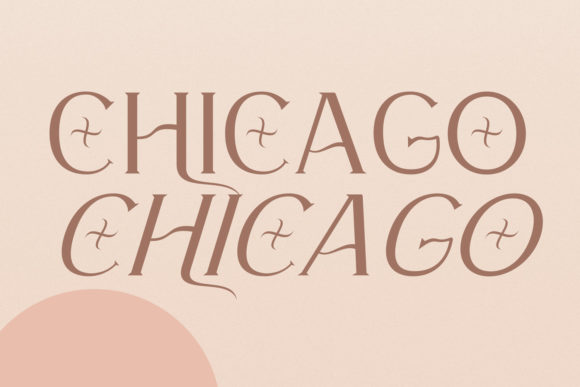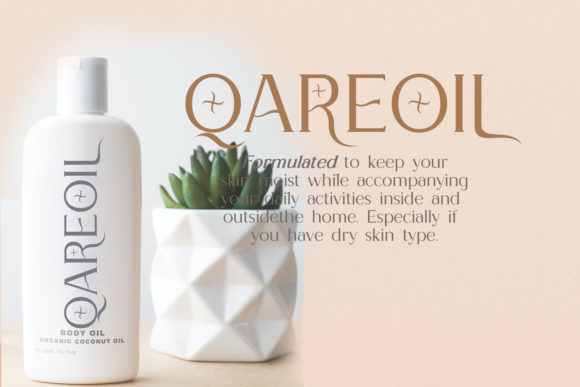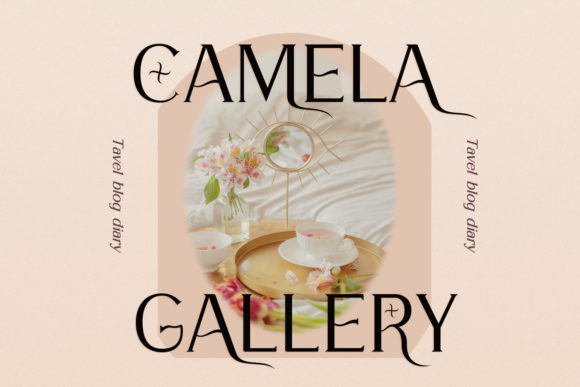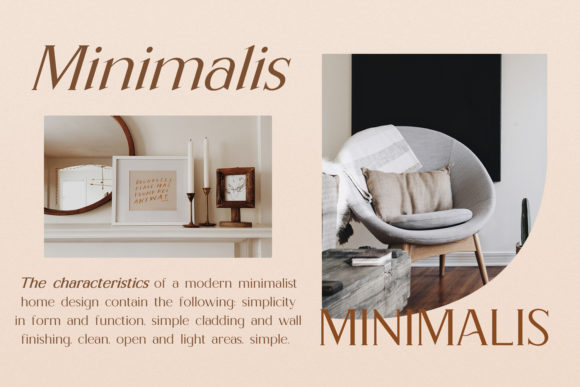
Discover the Elegance of Chicago Font: A Lovely, Stylish, and Delicate Serif Font
Are you a designer or crafter looking for a font that exudes elegance and sophistication? Look no further than the Chicago Font. This lovely, stylish, and delicate serif font is perfect for adding a touch of refinement to your projects. In this article, we’ll explore the features and benefits of the Chicago Font, and why it’s a must-have for any creative professional.
What is Chicago Font?
Chicago Font is a beautifully designed serif font that is perfect for a wide range of applications, from digital projects to print materials. Its delicate lines and elegant curves make it a versatile font that can be used for body text, headings, and even titles. Whether you’re working on a branding project, a website, or a craft project, Chicago Font is sure to impress.
One of the standout features of Chicago Font is its PUA (Private Use Area) encoding. This means that you can access all of the glyphs and swashes with ease, giving you even more creative possibilities. With PUA encoding, you can easily insert special characters, ligatures, and other unique elements into your text, taking your designs to the next level.
Features and Benefits of Chicago Font
So, what makes Chicago Font so special? Here are just a few of its key features and benefits:
- Delicate and elegant design: Chicago Font features a beautiful, refined design that is perfect for creating sophisticated and elegant text.
- PUA encoded: With PUA encoding, you can access all of the glyphs and swashes with ease, giving you maximum creative flexibility.
- Versatile: Chicago Font is suitable for a wide range of applications, from digital projects to print materials.
How to Use Chicago Font in Your Projects
So, how can you use Chicago Font in your projects? Here are a few ideas to get you started:
- Branding and logos: Chicago Font is perfect for creating elegant and sophisticated logos and branding materials.
- Web design: Use Chicago Font to add a touch of refinement to your website’s typography.
- Print materials: Chicago Font is ideal for creating beautiful and elegant print materials, such as brochures, flyers, and business cards.
- Craft projects: Chicago Font is perfect for crafters who want to add a touch of elegance to their projects, such as handmade cards, scrapbooking, and journaling.
Tips and Tricks for Getting the Most Out of Chicago Font
Here are a few tips and tricks for getting the most out of Chicago Font:
- Experiment with different sizes and colors: Chicago Font looks great in a variety of sizes and colors, so don’t be afraid to experiment and find the perfect combination for your project.
- Use it with other fonts: Chicago Font pairs well with other fonts, so try combining it with different typefaces to create a unique and interesting look.
- Take advantage of PUA encoding: With PUA encoding, you can access all of the glyphs and swashes, so be sure to explore these special characters and add them to your text.
| Font Name | Chicago Font |
| Author | Rezastudio |
In conclusion, Chicago Font is a lovely, stylish, and delicate serif font that is perfect for designers and crafters who want to add a touch of elegance and sophistication to their projects. With its PUA encoding and versatile design, Chicago Font is a must-have for any creative professional. So why wait? Download Chicago Font today and see the difference it can make in your designs!